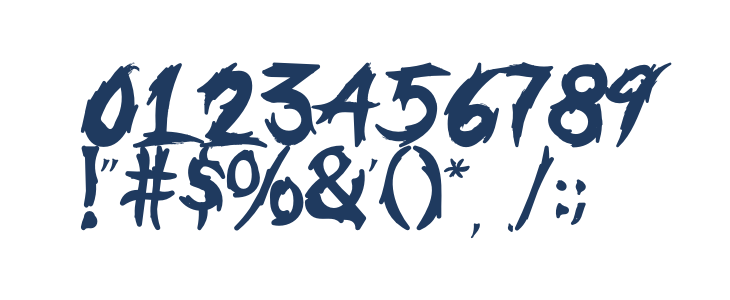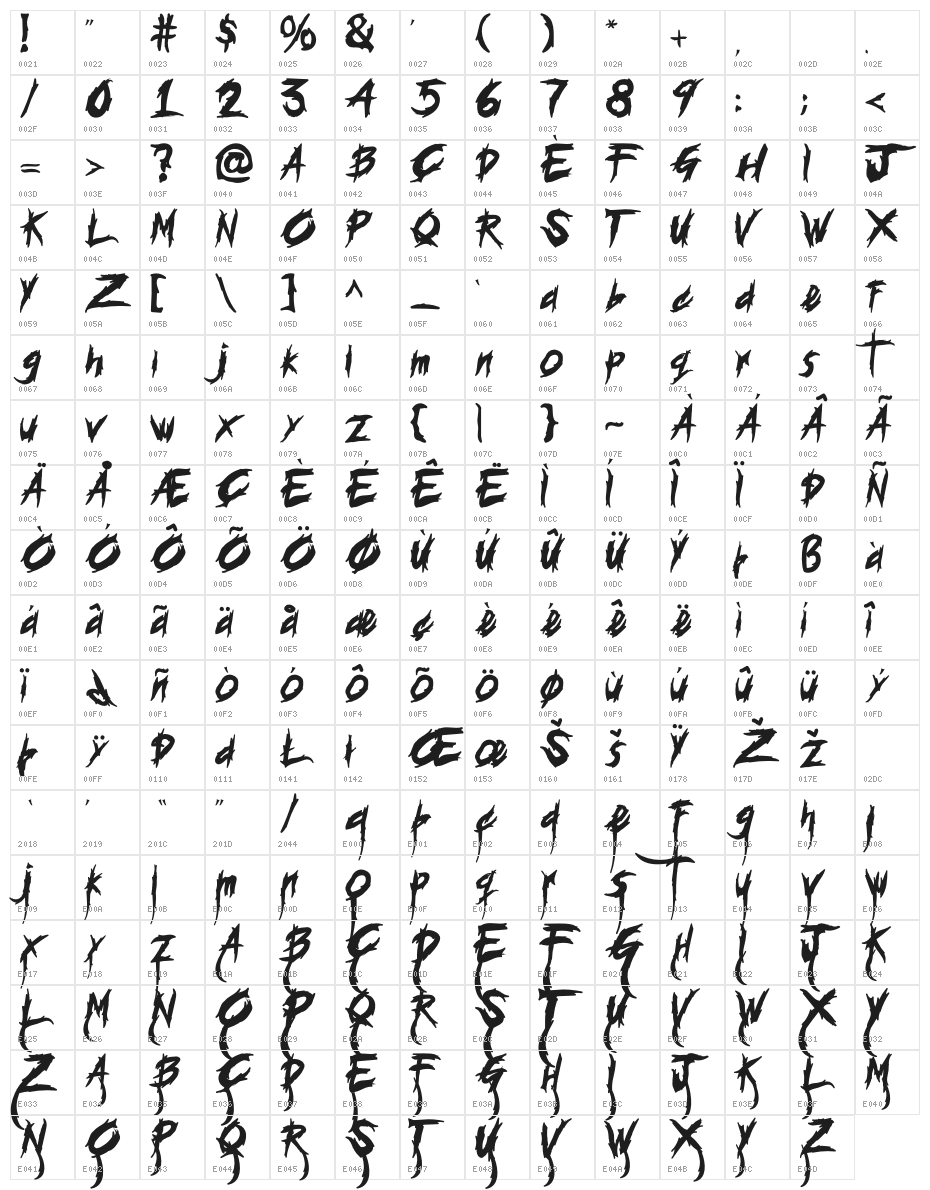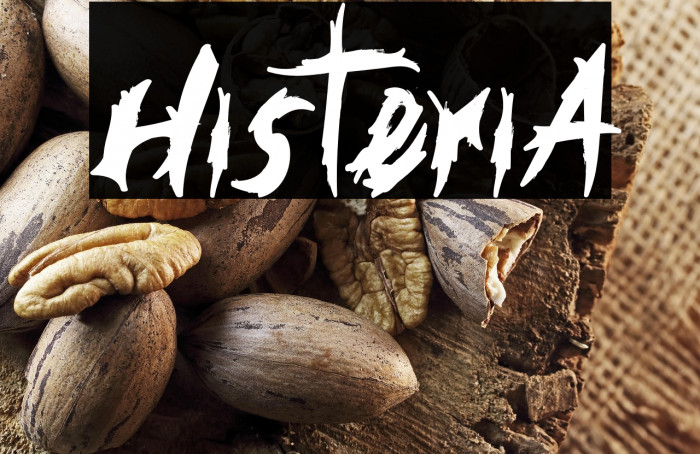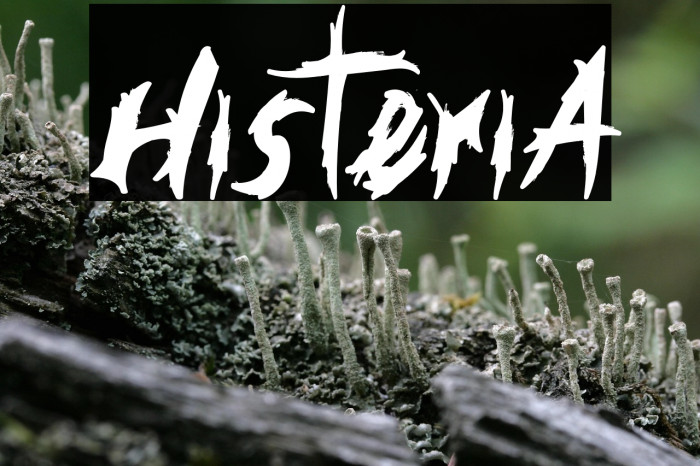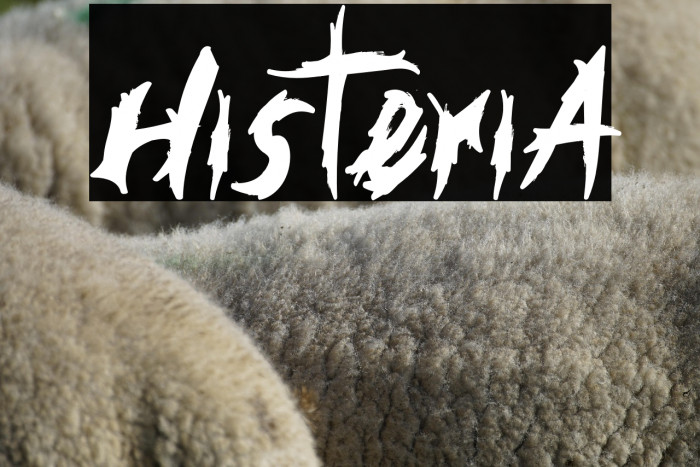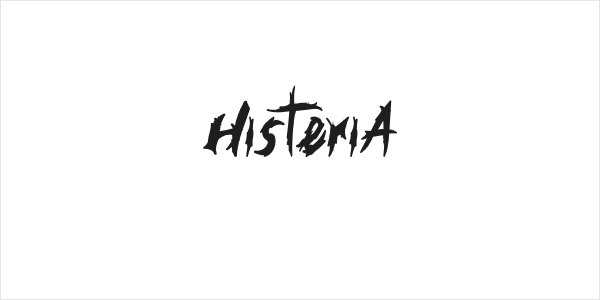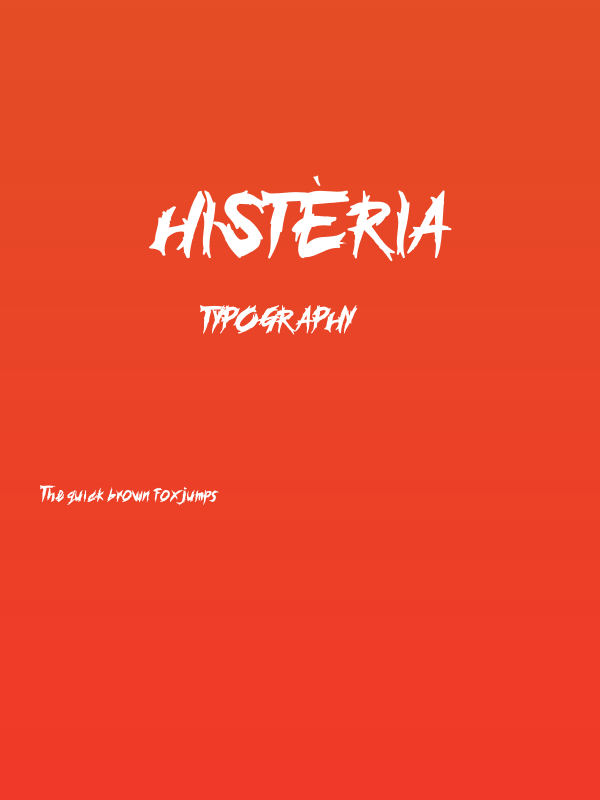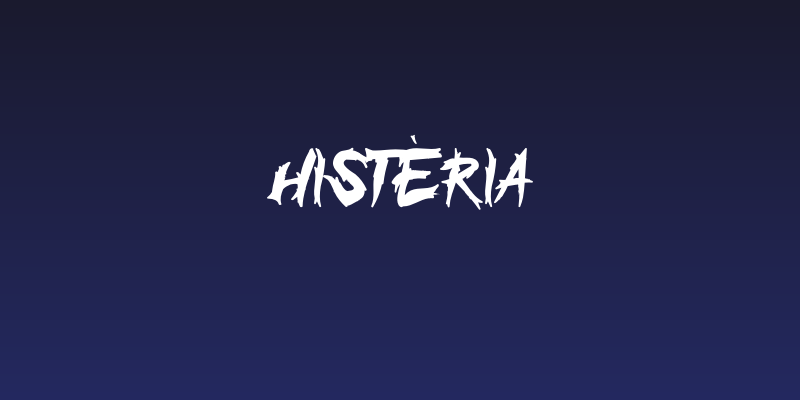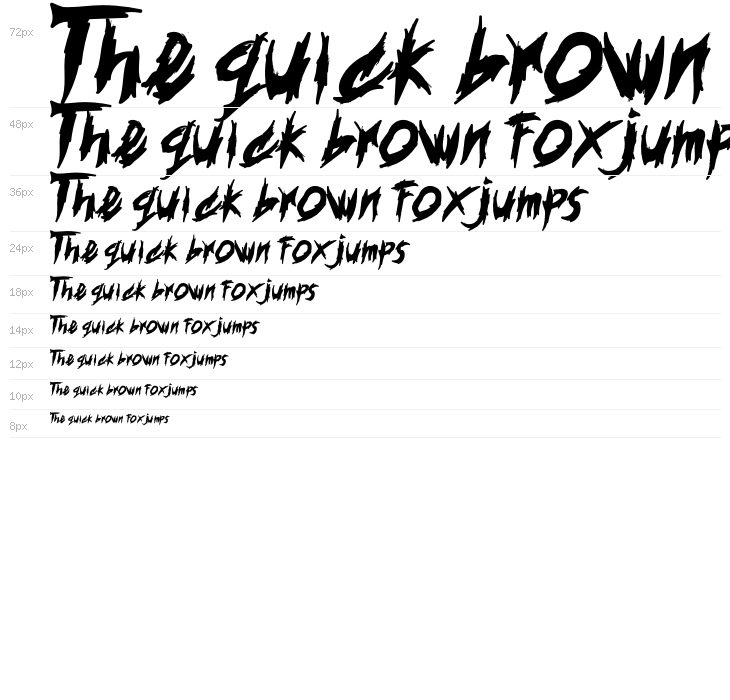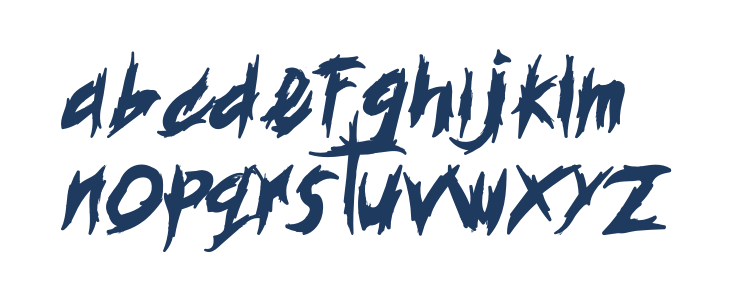
HisteriA Font
HisteriA Description
This font features a bold, aggressive style with sharp, jagged edges and a hand-drawn appearance. The letters are highly stylized, with an energetic and chaotic feel, reminiscent of graffiti or street art. The uppercase and lowercase letters maintain a consistent theme, with exaggerated strokes and an uneven baseline, adding to the dynamic and rebellious character of the font. Numbers and special characters follow the same aesthetic, ensuring a cohesive look across all elements. The overall impression is one of intensity and movement, making it ideal for projects that require a strong visual impact.
| Overall Style | Modern, Urban, Energetic |
| Proposed Projects | Ideal for album covers, posters, streetwear branding, and any project needing a bold, rebellious aesthetic. |